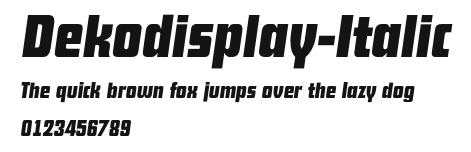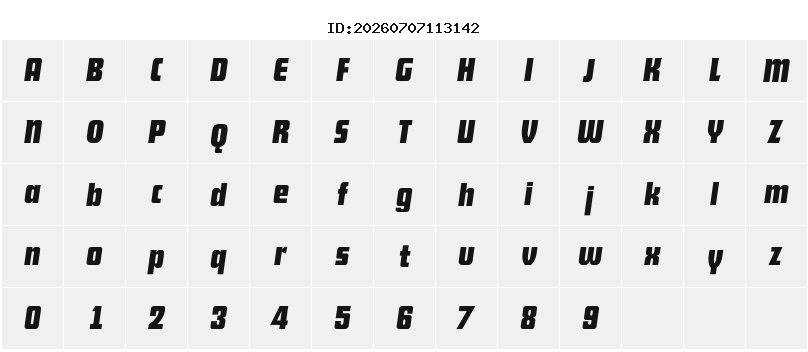
About Dekodisplay-Italic.otf
Dekodisplay-Italic.otf is a modern, elegant sans-serif font designed for ultimate readability and visual harmony. Perfect for branding, headlines, web design, and print materials.